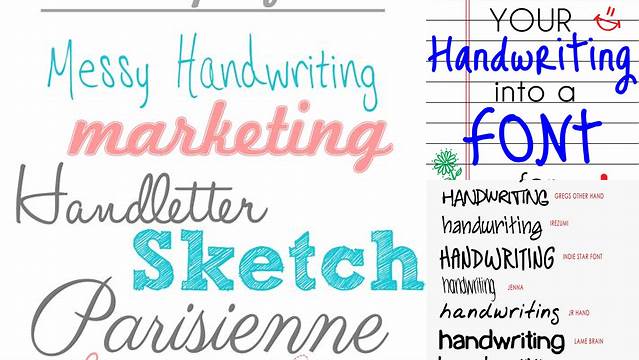
Free Handwriting Font Generator: Create Unique Text
Hey guys! Ever wanted to give your projects that personal, handwritten touch without actually, you know, handwriting everything? That's where a free handwriting font generator comes in super handy! It's like having a secret weapon in your design arsenal. Whether you're sprucing up invitations, jazzing up your website, or just making your social media posts pop, the right font can make all the difference. So, let's dive into the wonderful world of free handwriting font generators and see how they can help you create some truly unique text.
1. Understanding Handwriting Font Generators
Okay, so what exactly is a handwriting font generator? Simply put, it's a tool that allows you to create text in a font that mimics actual handwriting. These generators come in various forms – some are online tools, others are software you can download, and some are even apps for your phone. The beauty of using a free handwriting font generator is that you get the charm and personality of handwritten text without the effort (or potential mess!) of doing it yourself. They're perfect for adding a personal touch to invitations, greeting cards, logos, websites, and a whole lot more. You can use them for everything from wedding stationery to branding materials. Think about how much more special a birthday card feels when the message looks like it was written just for you! And with so many generators available, you're sure to find one that fits your style and needs. The key is to experiment and see what works best for your project. Whether you're aiming for elegant calligraphy or a fun, casual scrawl, there's a generator out there that can help you achieve it. You can use them to create logos, social media graphics, and even e-books.
2. Benefits of Using Free Handwriting Fonts
Why should you even bother with free handwriting fonts? Well, for starters, they add a personal and unique touch that standard fonts just can't replicate. Imagine using a generic font for your wedding invitations versus a beautiful, flowing handwriting font – the difference is night and day! Free handwriting fonts can evoke emotions and create a sense of authenticity, making your message feel more heartfelt and genuine. They're also incredibly versatile. You can use them for a wide range of projects, from formal invitations to casual blog posts. Plus, let's be real, who doesn't love free stuff? There are tons of high-quality handwriting fonts available at no cost, meaning you can save money while still achieving a professional and stylish look. And because there are so many options, you can really find the perfect font to match your brand or personal style. Think of the possibilities! You can create a logo that feels hand-crafted, design marketing materials that stand out, or even just make your personal documents look a little more special. Using a free handwriting font generator also allows you to experiment with different styles without the commitment of purchasing a font. This means you can try out various fonts for a project and choose the one that perfectly captures the vibe you're going for. And let's not forget about accessibility! Many free handwriting fonts are available in different weights and styles, making them usable in a wide range of designs.
3. Top Free Online Handwriting Font Generators
Alright, let's get to the good stuff! There are a bunch of awesome free handwriting font generators online, each with its own quirks and features. Some popular options include FontStruct, Calligraphr, and MyScriptFont. FontStruct is great if you want to build your own font from scratch, using a simple grid-based editor. Calligraphr lets you turn your actual handwriting into a font by uploading a template you've filled out. And MyScriptFont is another handy tool for converting handwritten characters into a font file. When choosing a generator, consider what features are important to you. Do you want to be able to customize every detail of the font? Or do you prefer a simpler tool that just gets the job done? Some generators offer advanced options like kerning and ligatures, while others focus on ease of use. It's also a good idea to read reviews and see what other users have to say about different generators. This can give you a better sense of which tools are reliable and which ones might be more frustrating to use. And remember, most of these generators allow you to preview your font before you download it, so you can make sure it looks exactly how you want it to. So, take your time, explore the options, and find the generator that sparks your creativity. With the right tool, you'll be able to create beautiful, handwritten-style fonts in no time.
4. How to Use a Handwriting Font Generator
Using a free handwriting font generator is usually pretty straightforward, but here's a quick rundown of the general process. First, you'll need to choose a generator that suits your needs. Once you've found one, you'll typically be prompted to either create your own font from scratch or upload a sample of your handwriting. If you're creating a font from scratch, the generator will usually provide you with a grid or template to fill in each letter, number, and symbol. If you're uploading a sample, you'll need to write out the alphabet and any other characters you want to include, then scan or photograph your writing and upload it to the generator. After that, the generator will usually do its magic and convert your input into a font file. You'll then be able to download the font and install it on your computer. Once the font is installed, you can use it in any program that supports custom fonts, such as Microsoft Word, Adobe Photoshop, or even online design tools like Canva. The exact steps may vary depending on the generator you use, but the basic process is generally the same. Most generators offer tutorials or help sections that can guide you through the process. It's always a good idea to read these instructions carefully to ensure you're using the tool correctly. And remember, practice makes perfect! The more you use a handwriting font generator, the better you'll become at creating fonts that look just the way you want them to.
5. Customizing Your Generated Fonts
The real fun begins when you start customizing your generated fonts! Most free handwriting font generators offer a range of options for tweaking your font's appearance. You can often adjust things like the thickness of the lines, the spacing between letters, and the overall slant or style of the font. Some generators even allow you to add flourishes or other decorative elements to your font. Customization is key to creating a font that truly reflects your personal style or brand identity. Don't be afraid to experiment with different settings and see what you can create. You might be surprised at the results! For example, you could try making a font that's bold and dramatic for a logo, or a font that's light and airy for a wedding invitation. You can also play with different textures and effects to give your font a more unique look. Some generators even allow you to add a subtle shadow or gradient to your font. The possibilities are endless! And remember, you don't have to be a professional designer to create a beautiful font. With a little bit of creativity and the right tools, anyone can create a font that they're proud of. So, go ahead and explore the customization options offered by your chosen generator and see what kind of magic you can make.
6. Integrating Handwriting Fonts into Your Projects
So, you've created your awesome handwriting font – now what? It's time to start integrating it into your projects! Handwriting fonts can add a personal and stylish touch to a wide range of designs, from logos and branding materials to websites and social media graphics. When using a free handwriting font generator in your projects, it's important to consider the overall tone and style you're going for. A casual, playful font might be perfect for a children's book, but it probably wouldn't be the best choice for a corporate report. Similarly, an elegant, flowing font might be ideal for a wedding invitation, but it might not be as effective on a website. Think about how the font will work with other design elements, such as colors, images, and layout. Will it complement these elements, or will it clash? It's often a good idea to try out your font in a few different contexts before you finalize your design. This will help you see how it looks and feels in different situations. You can also get feedback from others to see what they think of your font choice. And remember, less is often more. While a handwriting font can be a great way to add personality to your design, it's important not to overdo it. Using too many different fonts can make your design look cluttered and confusing. Stick to one or two fonts, and use them strategically to create a cohesive and visually appealing design.
7. Legal Aspects of Using Free Fonts
Okay, let's talk about the not-so-fun but super important stuff: legalities. When you're using free handwriting fonts, it's crucial to understand the licensing terms. Not all free fonts are created equal, and some may have restrictions on how you can use them. Some fonts are free for personal use only, while others can be used for commercial projects as well. Make sure you read the license agreement carefully before you start using a font in your work. If you're not sure whether a font is safe to use for a particular purpose, it's always best to err on the side of caution and contact the font designer or distributor. They'll be able to clarify the licensing terms and help you avoid any potential legal issues. It's also a good idea to keep a record of the fonts you've used in your projects, along with their licenses. This will make it easier to prove that you're using the fonts legally if the need ever arises. And remember, just because a font is available for free download doesn't necessarily mean it's free to use. Many websites offer fonts that are only free for personal use, or that require attribution if used commercially. So, do your homework and make sure you're following the rules. By taking the time to understand font licensing, you can protect yourself and your work from legal problems.
8. Common Mistakes to Avoid
Alright, let's talk about some common pitfalls to watch out for when using free handwriting fonts. One of the biggest mistakes is using too many different fonts in a single project. This can make your design look cluttered and unprofessional. Stick to a maximum of two or three fonts, and make sure they complement each other. Another common mistake is using a handwriting font for large blocks of text. Handwriting fonts are generally best used for headings, logos, and other short pieces of text. They can be difficult to read in long paragraphs. You should also avoid using handwriting fonts that are too decorative or stylized. These fonts can be hard to read and can detract from your message. Choose fonts that are clear, legible, and appropriate for your project. It's also important to consider the context in which your font will be used. A font that looks great on a website might not work as well in print, and vice versa. Think about the size, color, and spacing of your font, and make sure it's easy to read in the intended format. And finally, don't forget to check your spelling and grammar! A beautiful font won't make up for poor writing. Proofread your text carefully before you finalize your design. By avoiding these common mistakes, you can ensure that your handwriting fonts enhance your projects, rather than detract from them.
9. Future Trends in Handwriting Fonts
So, what does the future hold for handwriting fonts? Well, it's safe to say that they're not going anywhere! In fact, with the rise of digital design and personal branding, handwriting fonts are becoming more popular than ever. One trend we're seeing is the increasing use of free handwriting font generators to create custom fonts. This allows individuals and businesses to create fonts that are truly unique and reflect their personal style or brand identity. We're also seeing a growing demand for fonts that are both stylish and legible. Designers are looking for fonts that have the charm of handwriting but are still easy to read in a variety of contexts. Another trend is the use of handwriting fonts in unexpected ways. For example, some designers are using handwriting fonts in minimalist designs to add a touch of warmth and personality. We're also seeing handwriting fonts being used in motion graphics and video editing to create a hand-drawn effect. As technology continues to evolve, we can expect to see even more innovation in the world of handwriting fonts. New tools and techniques will make it easier than ever to create beautiful, unique fonts that add a personal touch to any project. So, if you're looking to stay ahead of the curve in design, keep an eye on the latest trends in handwriting fonts. They're sure to continue to play a major role in visual communication for years to come.
10. Handwriting Fonts for Branding
Using free handwriting fonts for branding can be a game-changer, guys! It's all about giving your brand that human touch, that personal feel that makes people connect with you on a deeper level. Think about it – a handwritten font can convey authenticity, warmth, and creativity, all crucial elements for building a strong brand identity. But here's the thing: you gotta choose the right font! You wouldn't use a playful, bubbly font for a serious financial firm, right? It's about matching the font's vibe with your brand's personality. If you're a creative agency, a quirky, unique handwriting font might be perfect. If you're a wellness brand, a soft, elegant script could be the way to go. And don't just slap it on your logo and call it a day. Think about how you can use it across your website, social media, and even your packaging. Consistency is key! Imagine seeing that same handwritten font on your website, your business cards, and your Instagram posts – it creates a cohesive and memorable brand experience. Plus, a well-chosen handwriting font can help you stand out from the crowd. In a sea of generic, corporate-looking brands, a handwritten font can make you feel more approachable and relatable. It's like saying,